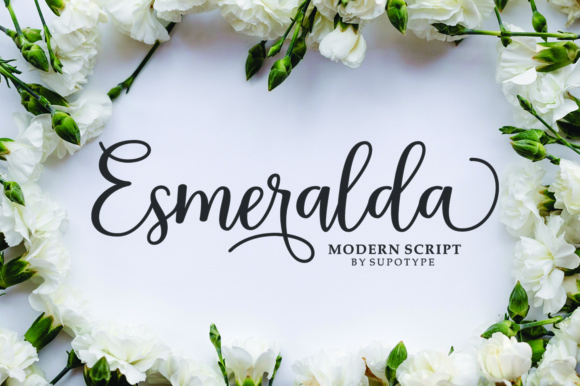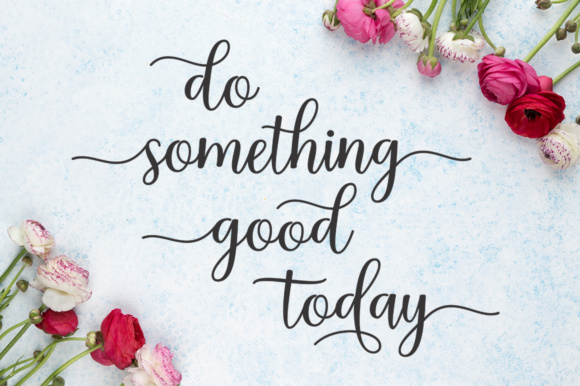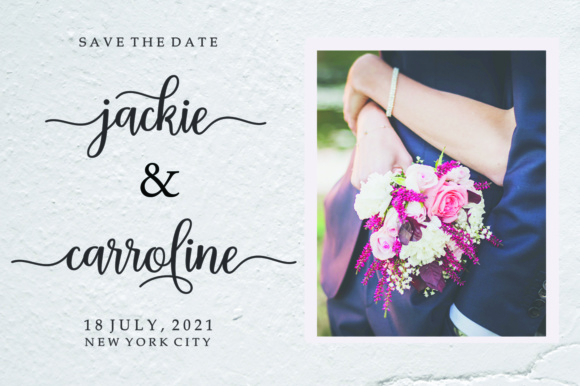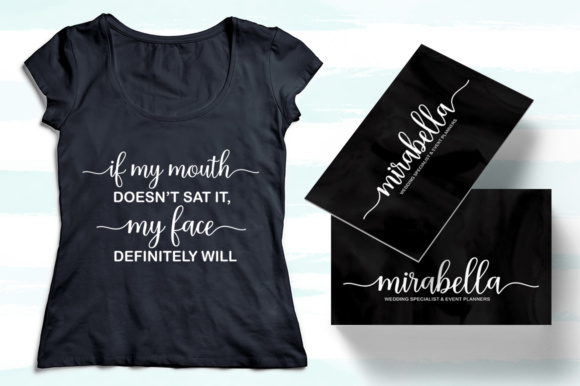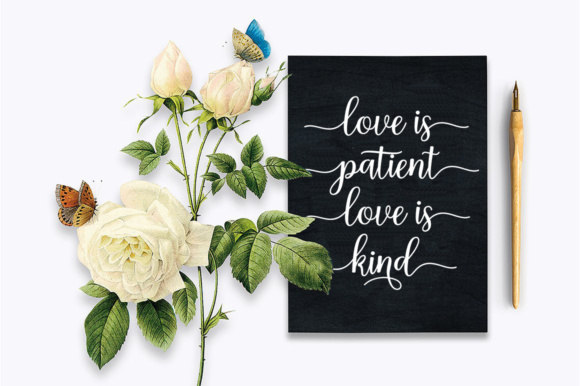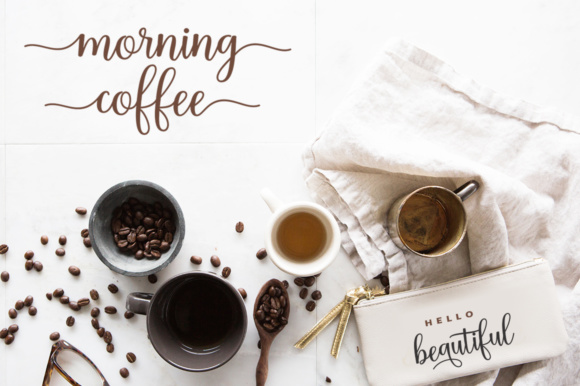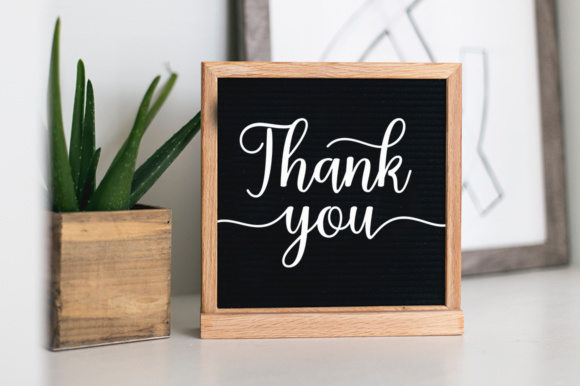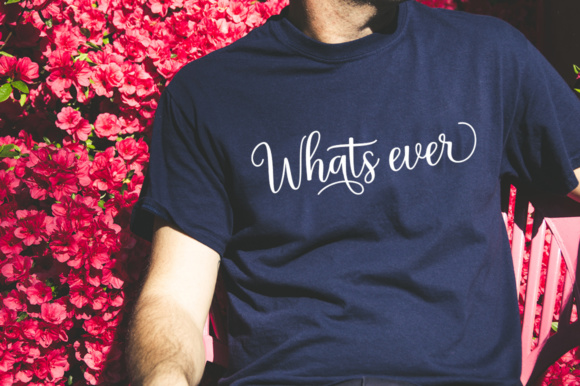
Esmeralda Script Font
About Esmeralda Script Font
Esmeralda is a sweet calligraphy font. It’s casual and dynamic with a dancing baseline. Esmeralda can be used easily and simply. Perfect for Branding, Logos, Greeting Cards, Wedding Stationery, Quotes etc.